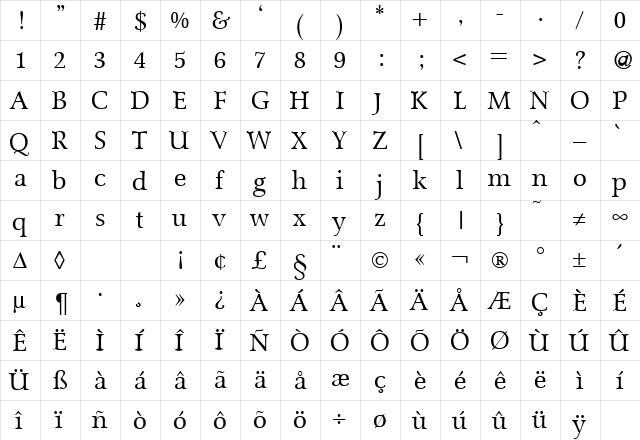
ScenicLight Regular
Design Context for ScenicLight Typeface
ScenicLight takes a measured approach to typography — its balanced proportions and neutral character make it a reliable workhorse for both digital and print work. Its slender proportions lend an understated elegance to any composition.